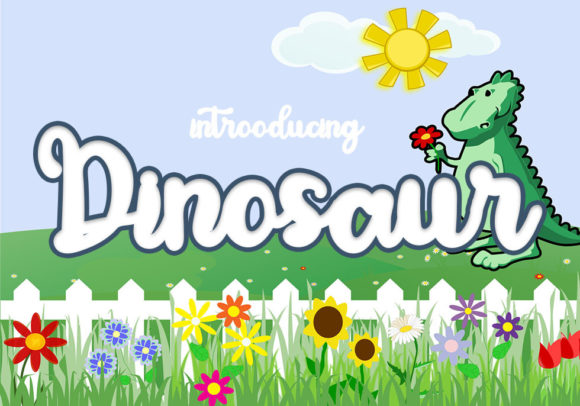
Dinosaur Font
About Dinosaur Font
Dinosaur is a cute and cursive script font. It is defined by smooth curves and is perfect for branding or editorial designs. Add it confidently to your projects, and you will love the results.